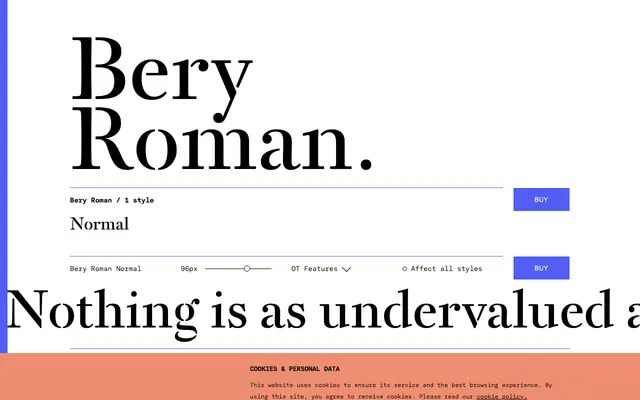
Bery Roman
TYPE BY · Fred Smeijers · 2012
A revival of 18th-century French stencil letters by Fred Smeijers, drawn from the stencil set Jean Gabriel Bery supplied to Benjamin Franklin in 1781.
Designed by Fred Smeijers and part of TYPE BY's Stencil Fonts Series, it reconstructs the roman letters of Paris stencil maker Jean Gabriel Bery, whose work blends calligraphic, engraved and typographic sensibilities characteristic of the French stencil tradition. Smeijers recognised the purely typographic potential in Bery's originals, producing a single style that works at both text and display sizes. True to the historical source, not every glyph carries a stencil break, reflecting the period view that breaks should be as few and inconspicuous as possible.
Bery Roman is a stencil typeface reviving 18th-century French stencil letters, with calligraphic, engraved and typographic qualities that place it firmly in the display category despite its versatility for text settings.